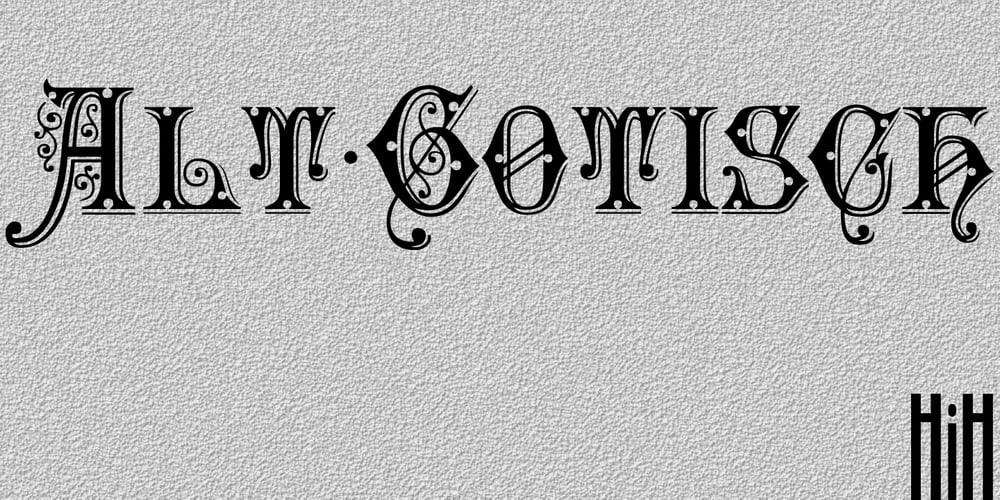
Alt Gotisch Font Family was designed by published by HiH. Alt Gotisch contains 2 styles and family package options. Alt-Gotisch Verzierte is a typeface of decorative initials that is Victorian in style and bears a close family resemblance to the many ornamental tuscans cut throughout the nineteenth century by British foundries. Instead of the bifurcated terminals of the archetypical tuscan (see Figgins Tuscan by HiH or Stereopticon by Dan X. Solo), these letters display what Nicolete Gray might call a “wedge and bite” design — as if they started with the wedge serif of a latin form and someone came along and took a perfectly round bite out of the wedge. We need not dwell on the lack of teeth marks. The calligraphic curls and flourishes are often graceful, sometimes a bit contrived, but always complex. There is a busyness that marks the style of the period. If you ever see an old photograph of a well-appointed Victorian parlor, you will recognize that same quality of busyness. Overdone is a word that frequently comes to mind. Alt-Gotisch Verzierte means “adorned or decorated old gothic.” The typeface is attributed by Alexander Nesbitt to an unidentified German foundry of the nineteenth century (Decorative Alphabets and Initials, Dover, New York 1987, plate 92). The designer is unknown. Our font is supplied with a lower case that is similar to the upper case, but is 15% shorter and is simplified by the omission of the decorative vines. For the lower case, alternate letters A, E, & T; and ligatures LE, OT & LY have been supplied. In addition, a few small decorative vines were planted here and there for optional use. An accented upper case is not part of the original design and is not here supplied. This design is also seen under the name “Sentinel” — as always, it is worthwhile to compare the completeness of the character set and the faithfulness of the rendering. We believe you will agree that we provide a balance of quality and value that is unmatched in the contemporary marketplace. Alt-Gotisch Einfach is a simplified version of Alt-Gotisch Verzierte. The vine-less lower case of the Verzierte font is the upper case in Einfach. For a lower case for Einfach, the letters were further simplified by stripping away the three-dimensional outline, down to the bare bones and bites, as it were. Einfach, in fact, means “simple” or “plain.” It is interesting to note that this bare bones & bite lower case bears (I have a special license to use two homonyms in the same sentence) a striking resemblance to the 15th & 16th century ornamental letters from Westminster Abbey shown in Plate 47 of Alexander Nesbitt’s Decorative Alphabets and Initials (Dover, New York 1987).